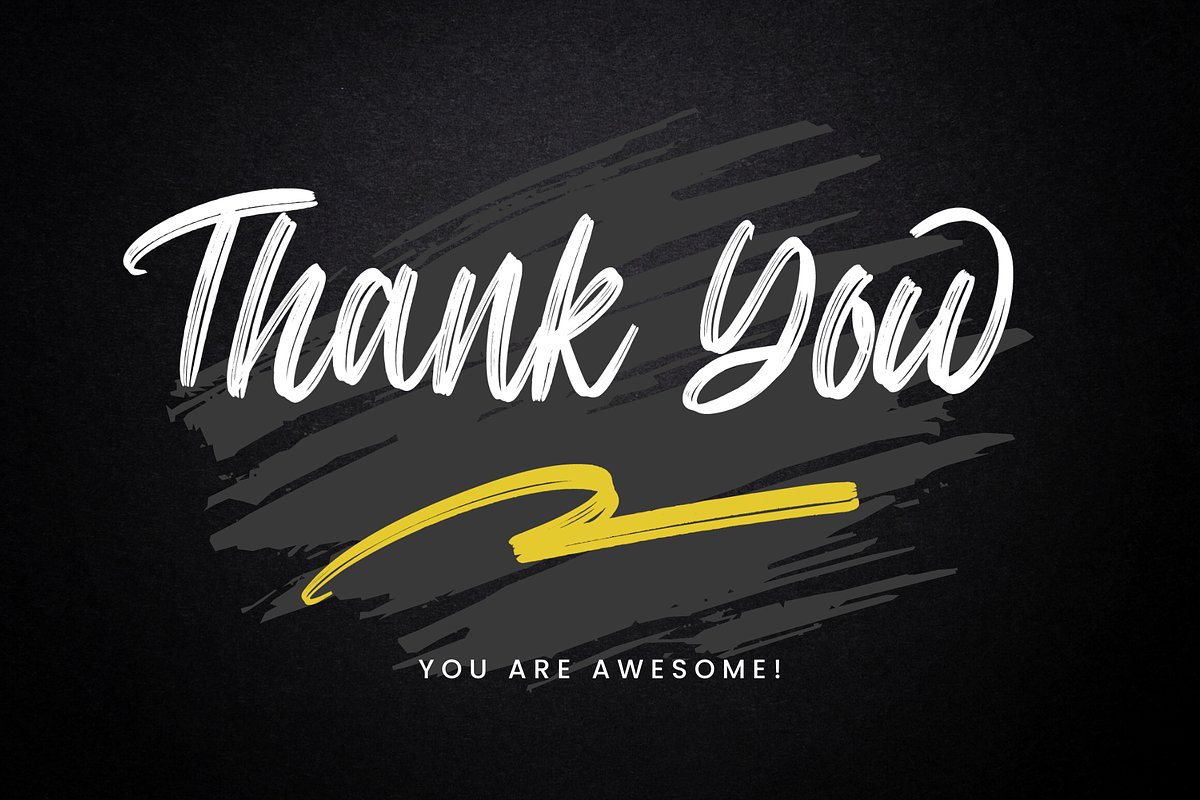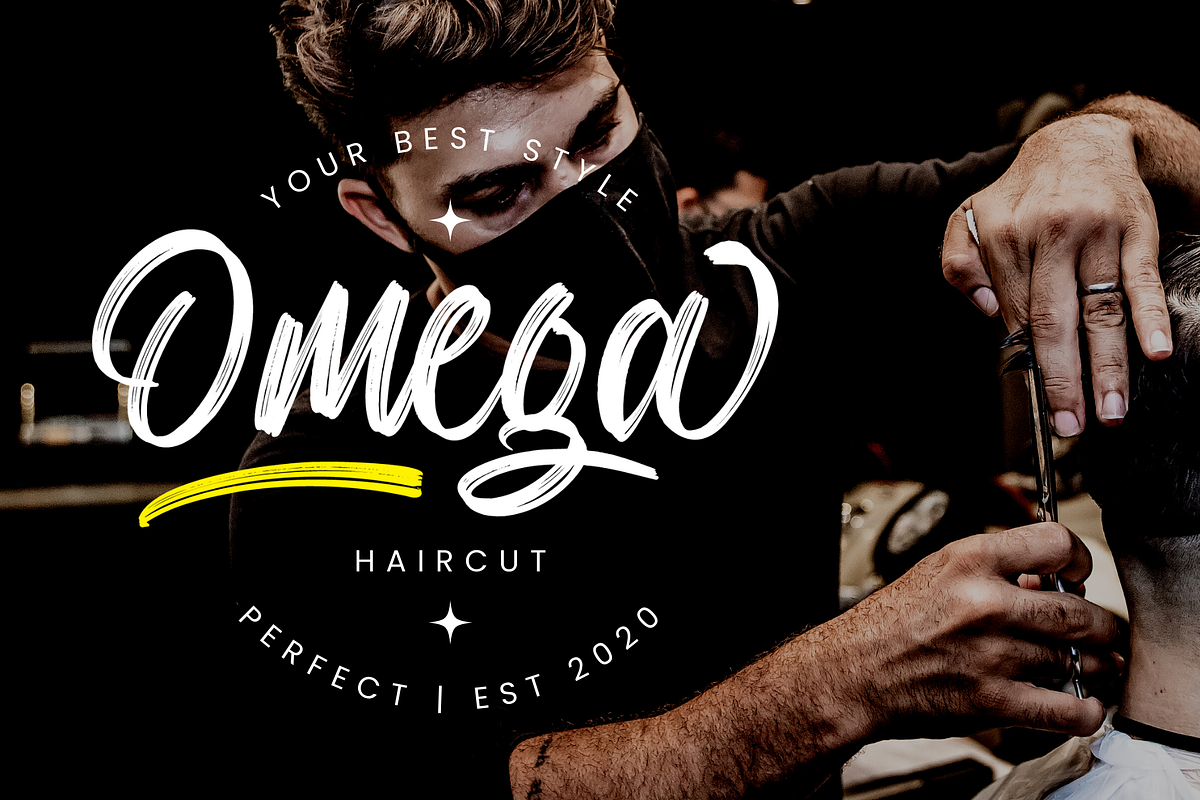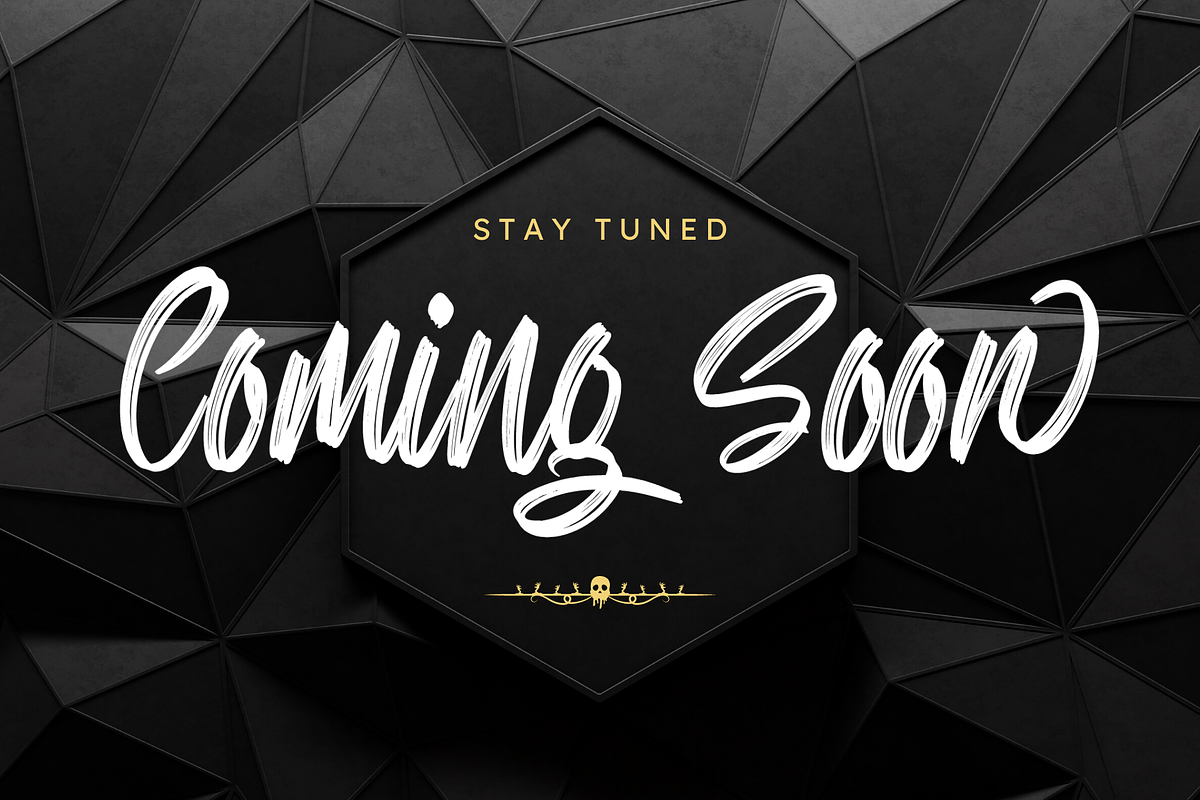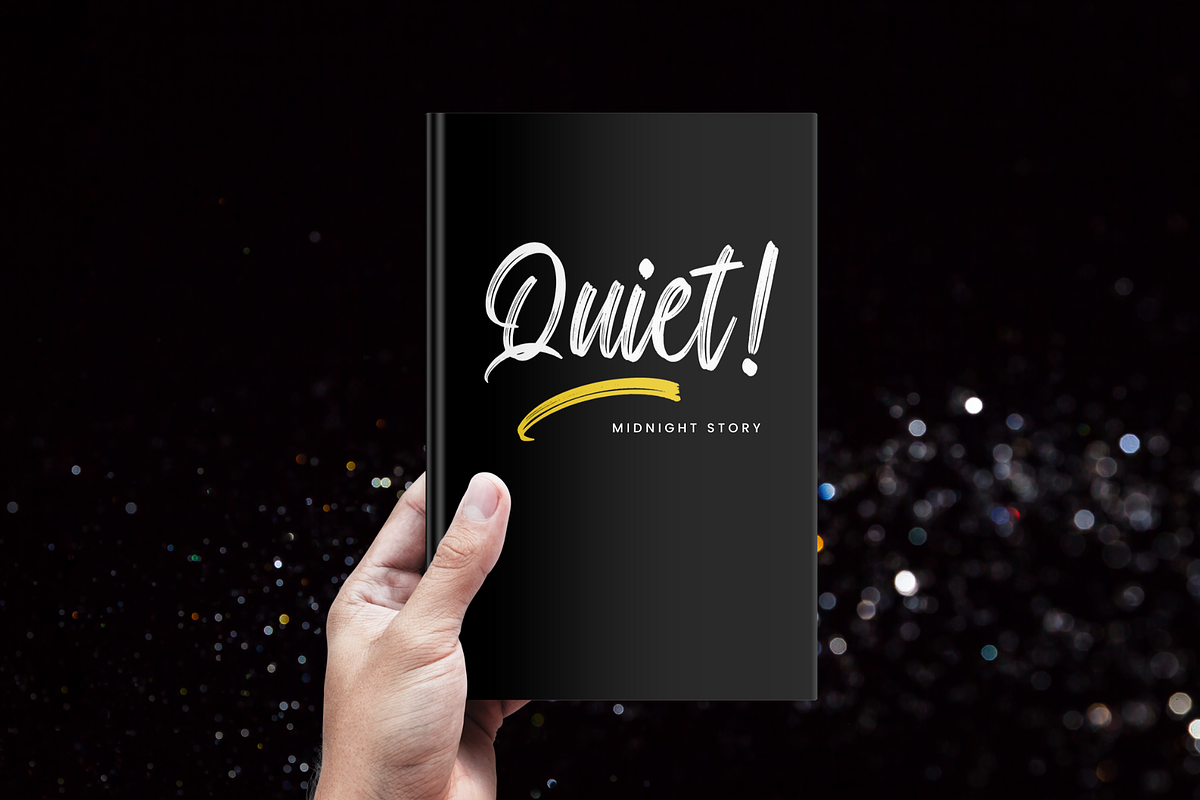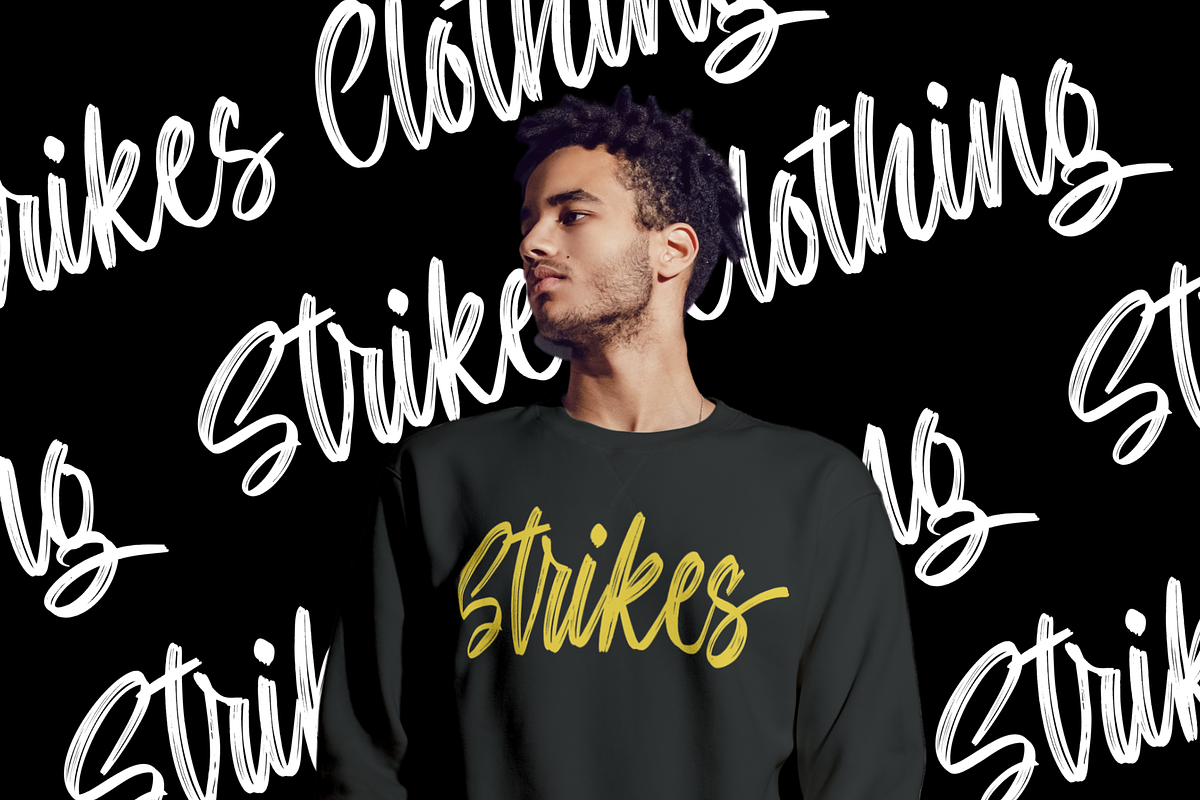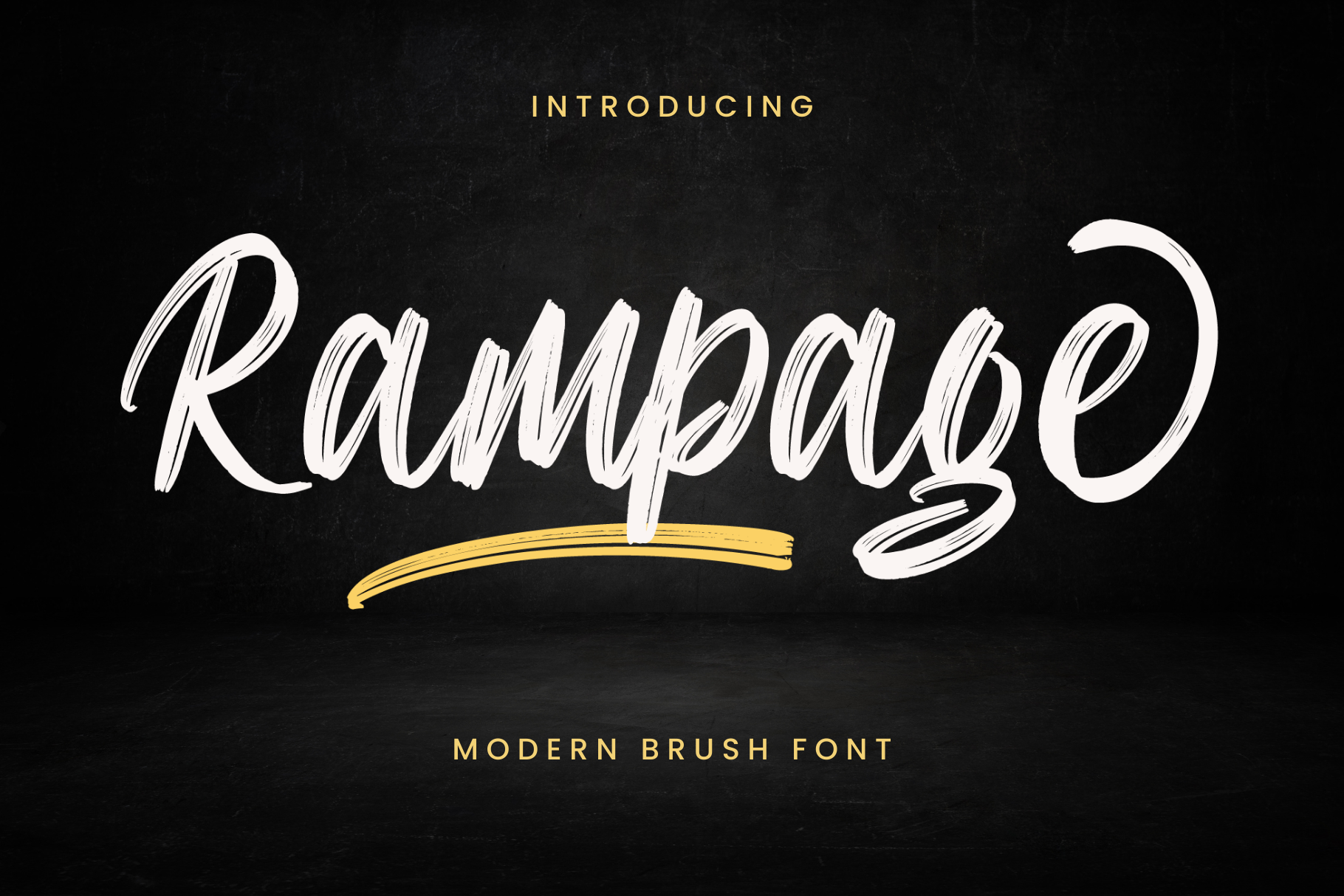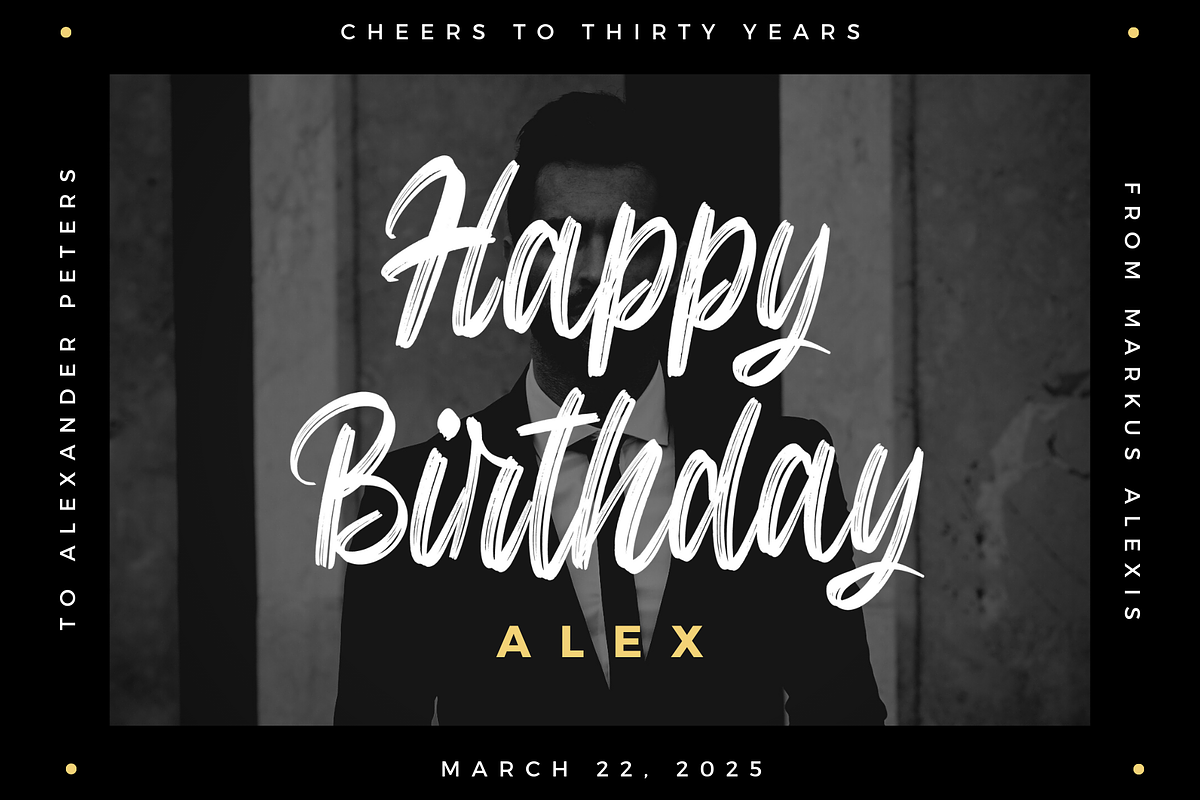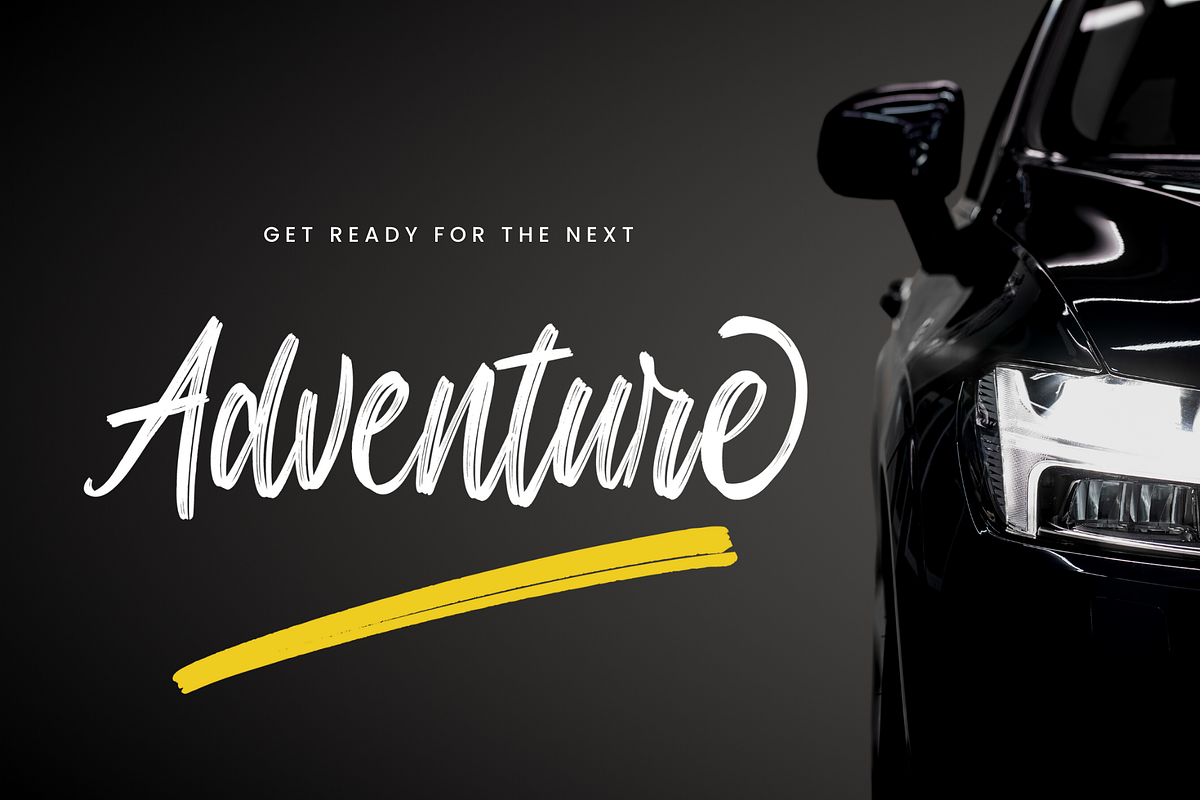
Rampage | Modern Brush Font
Say hello to Rampage — a modern brush script font full of attitude and dynamic energy. Inspired by street style, urban culture, and hand-painted signage, Rampage delivers bold strokes, organic textures, and expressive curves in every character.
Crafted with passion, this typeface gives your designs a raw and rebellious edge — perfect for standing out in a world full of sameness.
Whether you’re designing for a barbershop, streetwear label, fitness club, music event, or bold social media post, Rampage sets the tone with authentic character and modern flair.
- Uppercase & Lowercase Letters
- Bonus Swashes & Ligatures
Rampage is perfect for:
- T-shirt & apparel design
- Fitness & sport branding
- Barbershop & grooming brands
- YouTube thumbnails & event posters
- Streetwear tags & music covers
- Modern urban branding